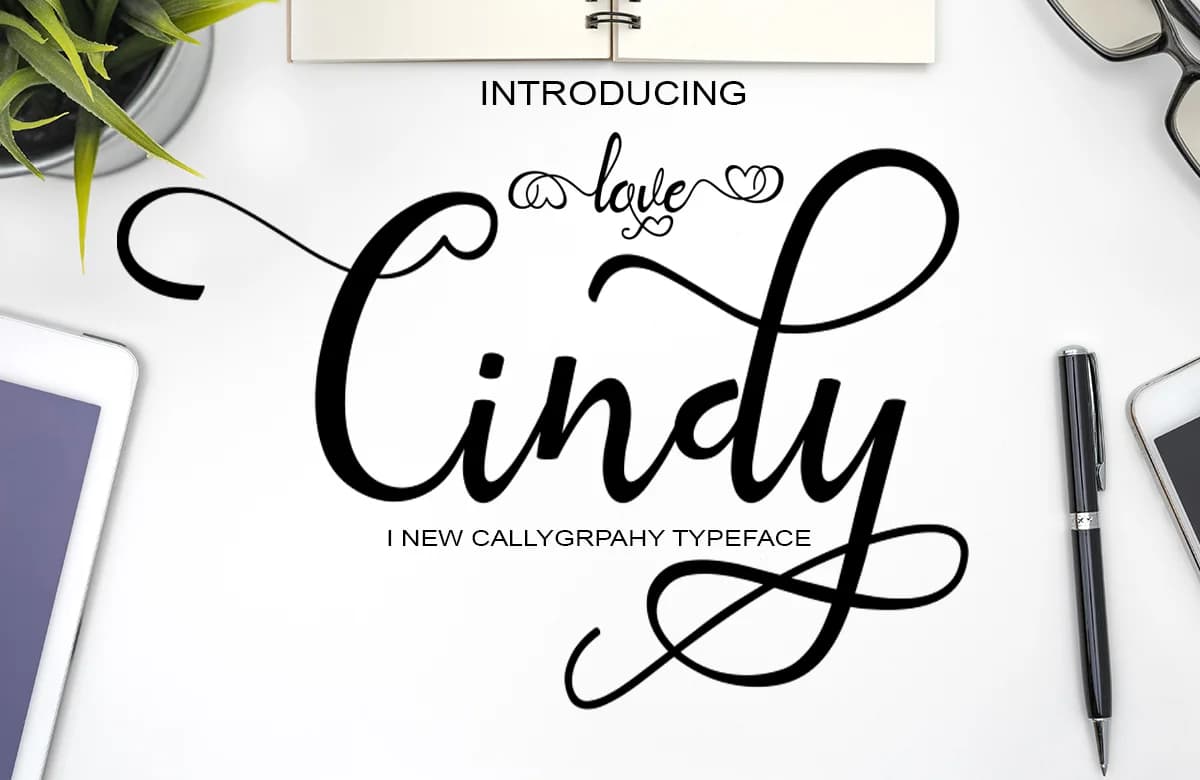
Love Cindy Script Font by art design is a flowing romantic typeface characterized by delicate flourishes and expressive letterforms that dance gracefully across the page. This handwritten script brings authentic personality and warmth to designs that call for true sophistication and visual interest. With its ornamental details and refined curves, it transforms ordinary projects into cherished keepsakes worthy of preservation and heartfelt display.
The font excels in creating wedding invitation suites with personalized touches that feel custom-crafted and intimate, crafting elegant greeting cards that capture genuine emotion and sentiment, and designing luxury cosmetics labels with boutique appeal and elegance. Bridal stationery, engagement announcements, and personalized thank-you notes all gain depth and character from Love Cindy's flourished letterforms. It performs beautifully across fashion branding initiatives, social media graphics that demand visual engagement, and DIY celebration signage that stands out. Whether you're designing for milestone moments or infusing everyday projects with luxury touches, this script delivers warmth and refinement.
Love Cindy Script Font is a script font that shines as a display or heading face. Pair it with a clean sans-serif or serif font for body text β the contrast creates a clear hierarchy while the two styles stay balanced and easy to read.
Love Cindy Script Font